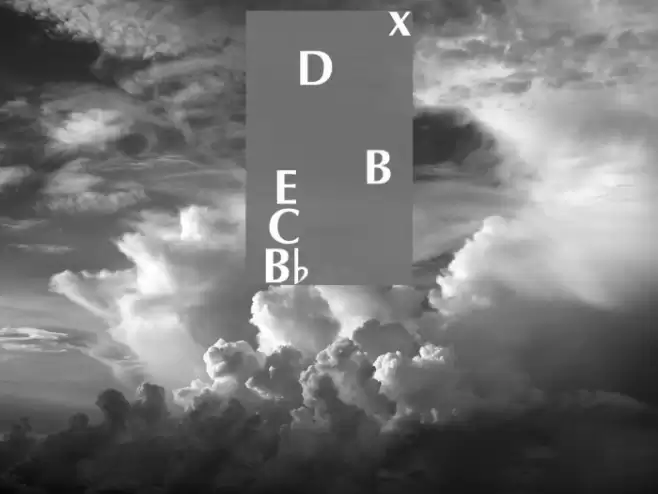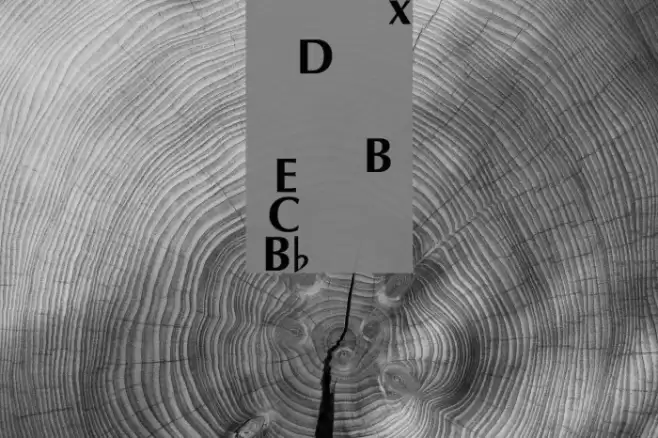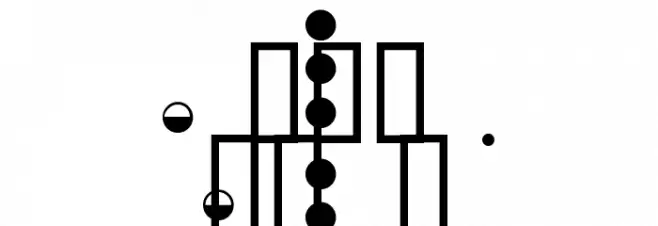
Woodwind Tablature SaxUS Font
Woodwind Tablature SaxUS Description
This is a pictographic or symbolic font designed for woodwind tablature notation, specifically for saxophone. The characters consist of rectangular outlines and filled circles, representing fingerings and musical instructions rather than traditional alphanumeric glyphs.
A symbolic font for saxophone tablature notation using geometric shapes from Uncategorized fonts.
- Proposed Projects: Sheet music for saxophone, educational materials for woodwind instruments, instructional diagrams.
- Overall Style: Functional, instructional, geometric
- Use Case: Musical notation, instructional diagrams